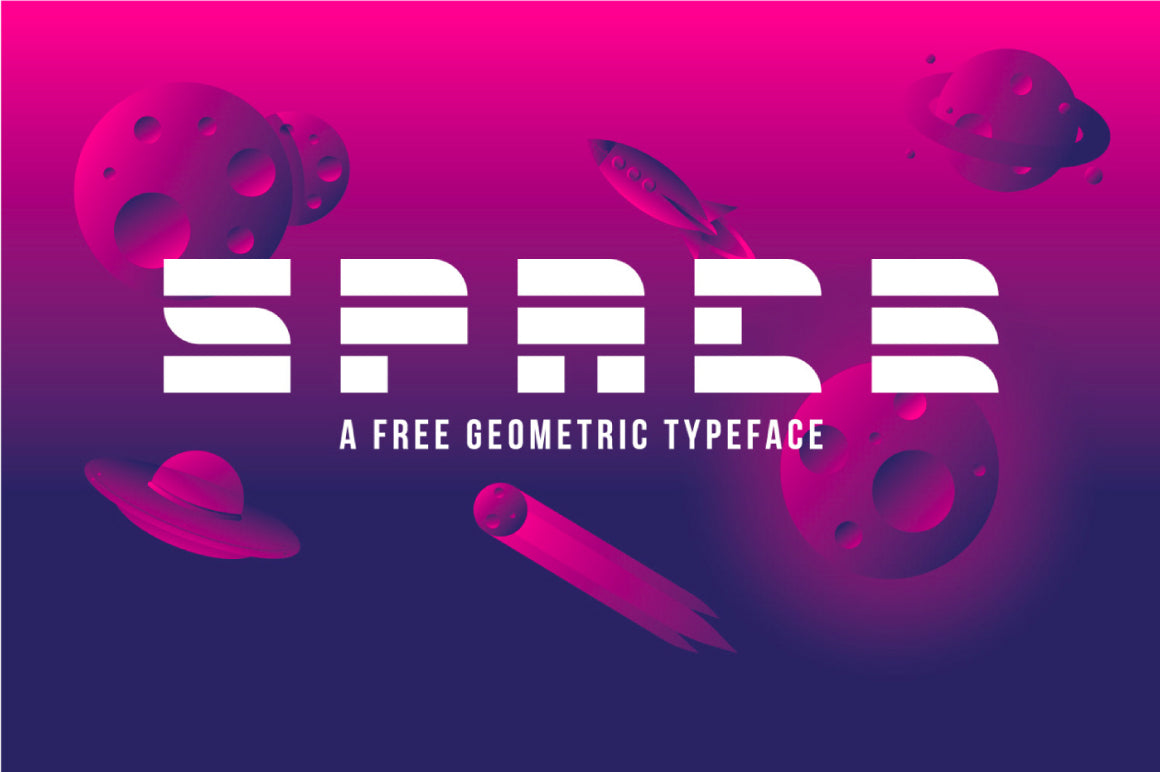
Free Futuristic Space Display Font
Download and enjoy this Free Futuristic Space Display Font. Cool typeface to showcase your designs in a modern way. Download this font from the source of Pixel Surplus. You can create professional designs with this fancy font.